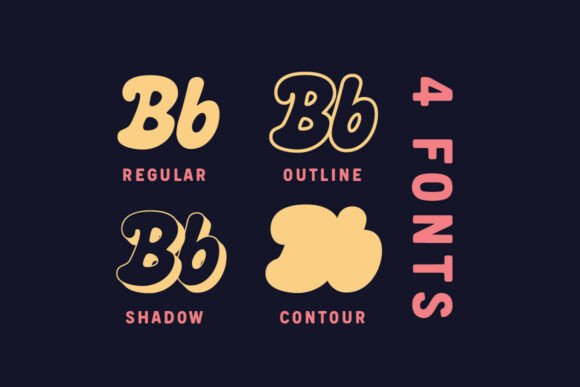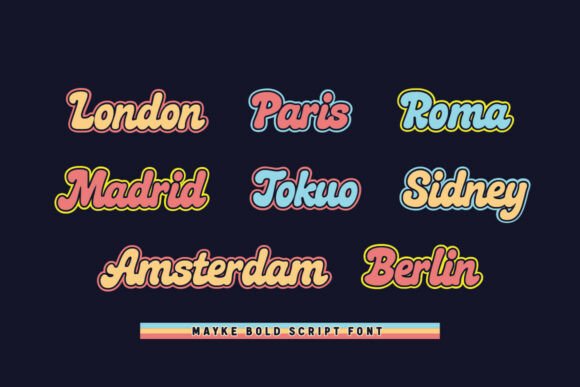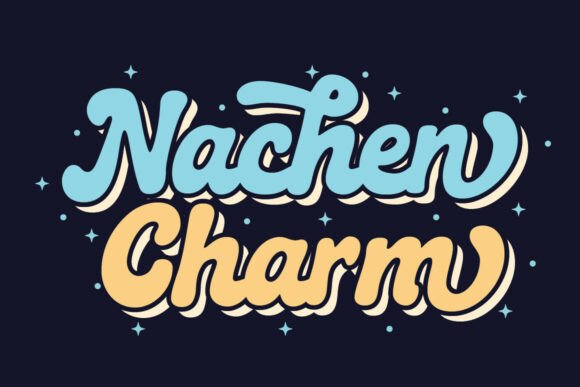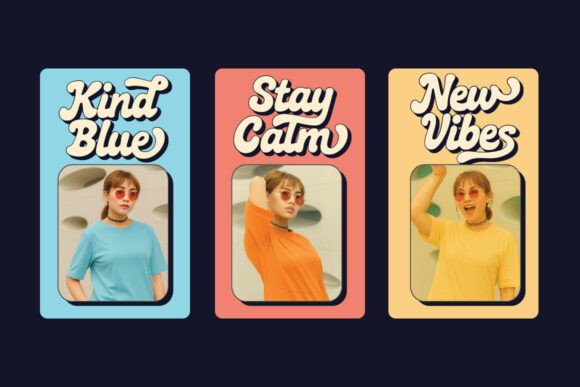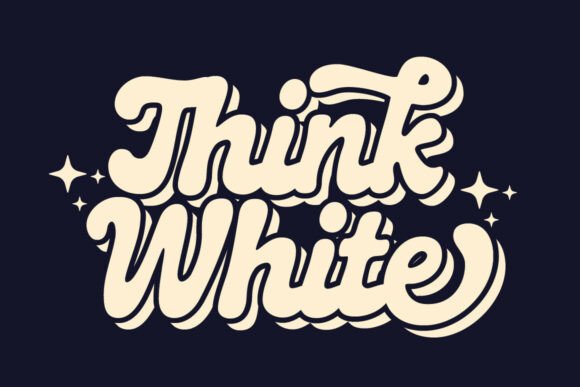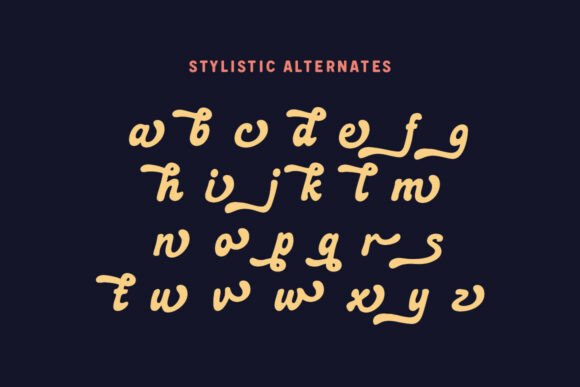
Introduction to Mayke Regular Font
Have you ever stared at a blank canvas, waiting for that spark of creativity to strike? That’s exactly what happens when you pair your design skills with the perfect font – like Mayke Regular Font. This bold and energetic script font family is the secret ingredient that can elevate your design project from ordinary to extraordinary.
As a designer, you know that the right font can make all the difference in conveying your message. That’s why Mayke Regular Font is a valuable resource in your design arsenal. With its smooth curves and retro-inspired letterforms, Mayke Regular Font adds a fun and playful touch to any project, from branding and logos to product packaging and social media graphics. Whether you’re working on a high-quality design or a quick free download, Mayke Regular Font is the perfect companion to help you achieve a transparent background that truly showcases your creativity.
With its four dynamic styles – Regular, Outline, Contour, and Shadow – Mayke Regular Font offers endless possibilities for layering and custom typographic effects. So why settle for a plain font when you can make your message bold, fun, and unforgettable with Mayke Regular Font?
Key Features of Mayke Regular Font
- High-quality design resource for creative projects, ideal for logos, headings, and body text.
- Mayke Regular Font features a clean and modern design, perfect for corporate branding and marketing materials.
Honest Review: Mayke Regular Font
I recently stumbled upon the Mayke Regular Font, and I must say, it’s a great addition to any designer’s toolkit. As a design resource, it offers high quality and versatility, making it perfect for a wide range of creative projects.
One of the things that stands out about this font is its clean and modern aesthetic. The transparent background allows for seamless integration with any design element, and the bold lines make it perfect for headlines and titles.
- ✨ High quality and crisp typography
- ✨ Versatile and suitable for a wide range of creative projects
- ✨ Transparent background for seamless integration
- ⚠️ Limited character set, which may not be suitable for extended text blocks
- ⚠️ Not ideal for small text sizes, as the lines may become too thin and difficult to read
Overall, I’m impressed with the Mayke Regular Font. It’s a great resource for designers who want to add a touch of modernity to their projects. While it has some limitations, its strengths far outweigh its weaknesses, making it a valuable addition to any design library.
The Mayke Regular Font is a high-quality design resource that can elevate your creative project with its clean and modern aesthetic. With a transparent background, this font is perfect for adding a touch of sophistication to your designs.
Common Use Cases for the Mayke Regular Font
The Mayke Regular Font is ideal for:
- Website headers and footers